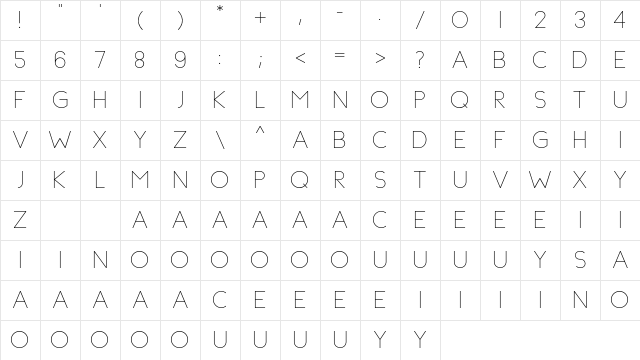
TopaziaNonCommercial Regular
| Designer | Robin Campistron |
Design Context for TopaziaNonCommercial Typeface
TopaziaNonCommercial is a composed and adaptable typeface that performs quietly and consistently across a wide range of design contexts.